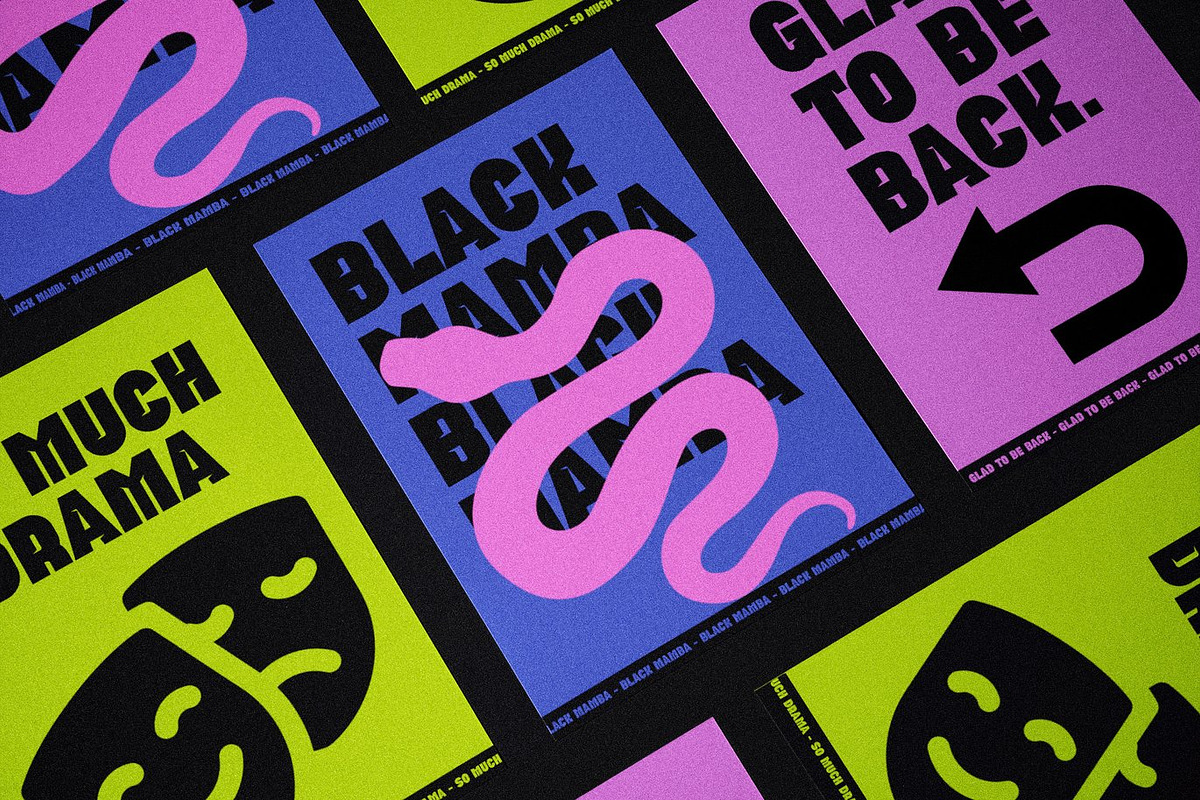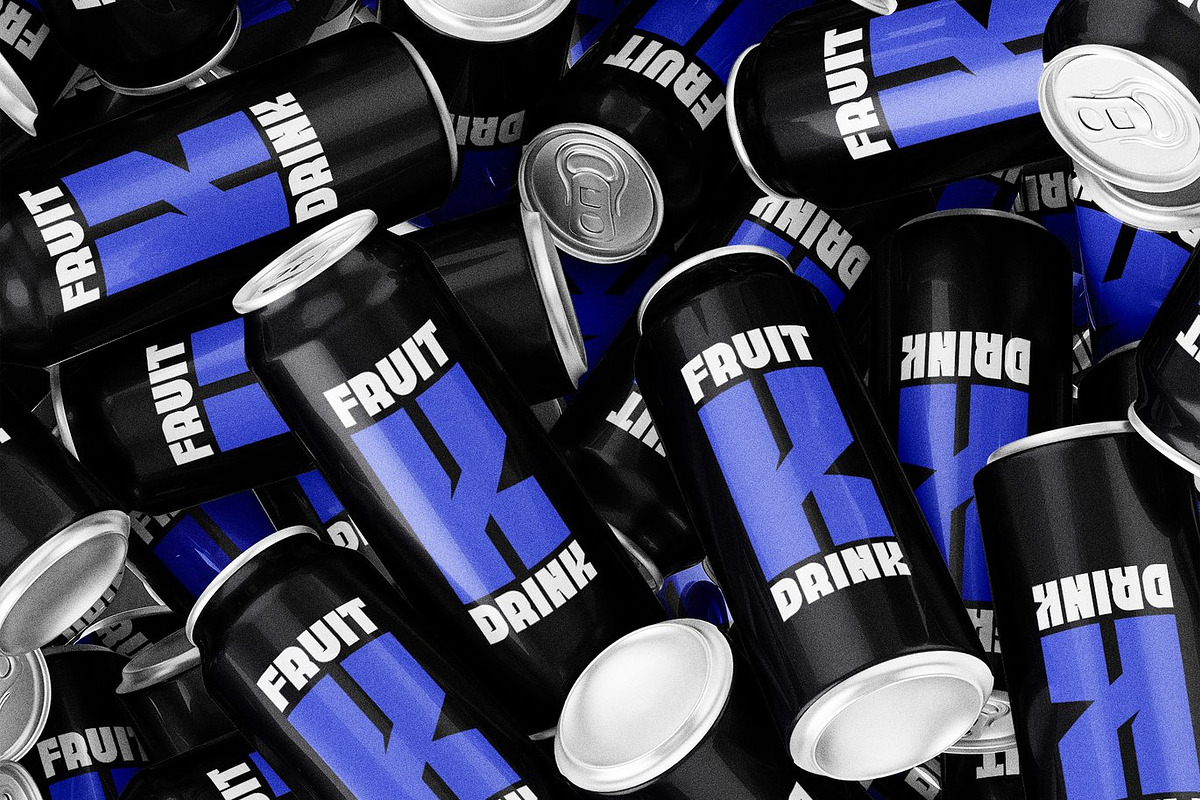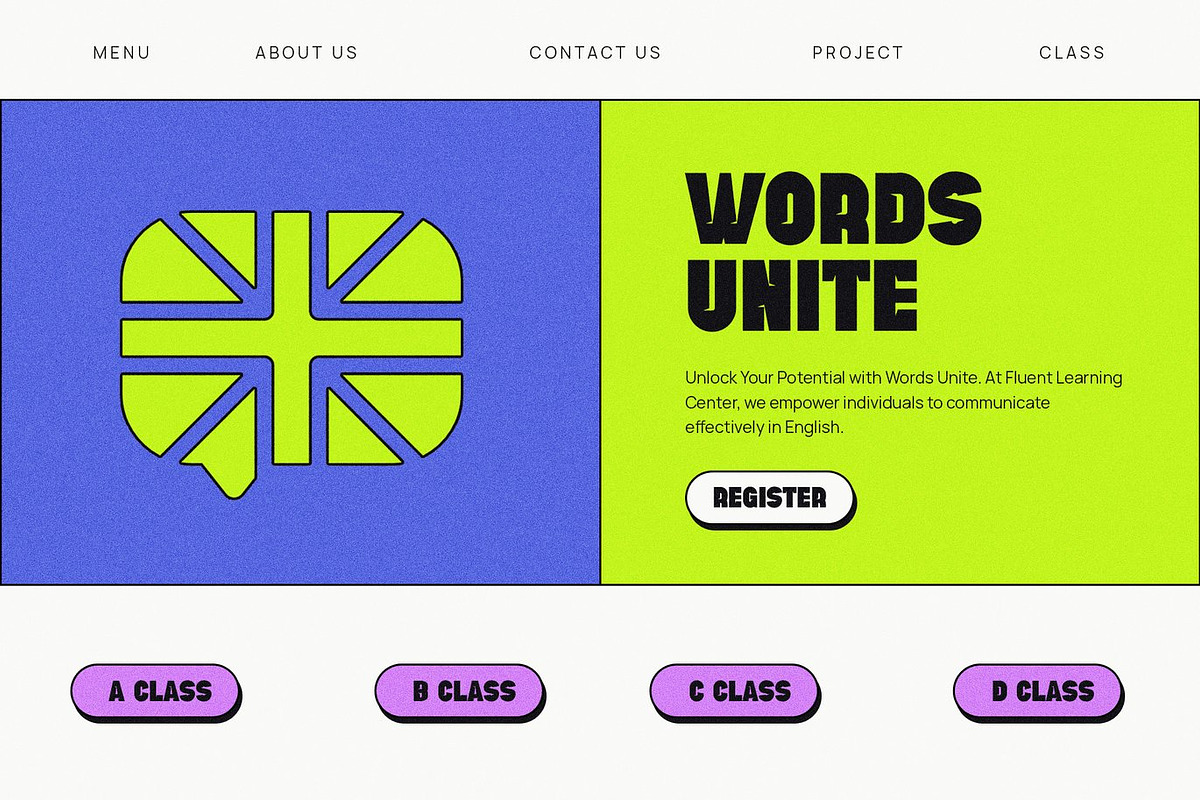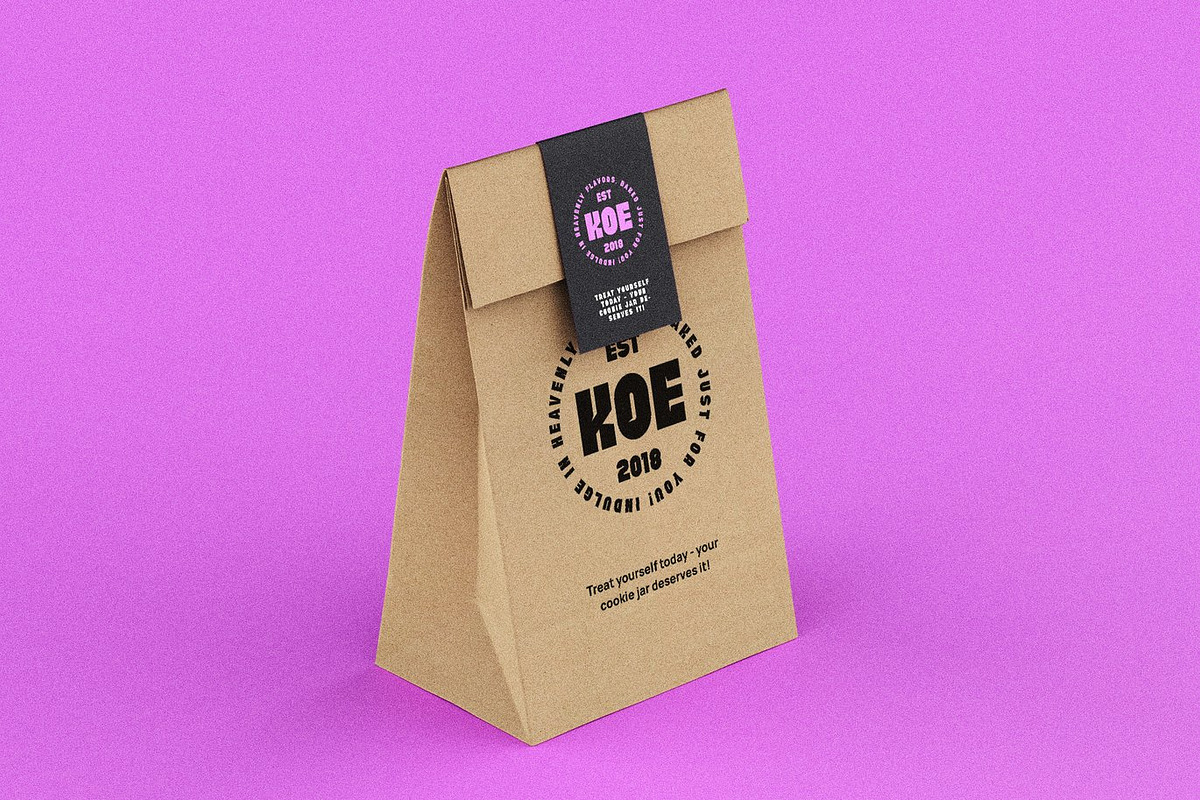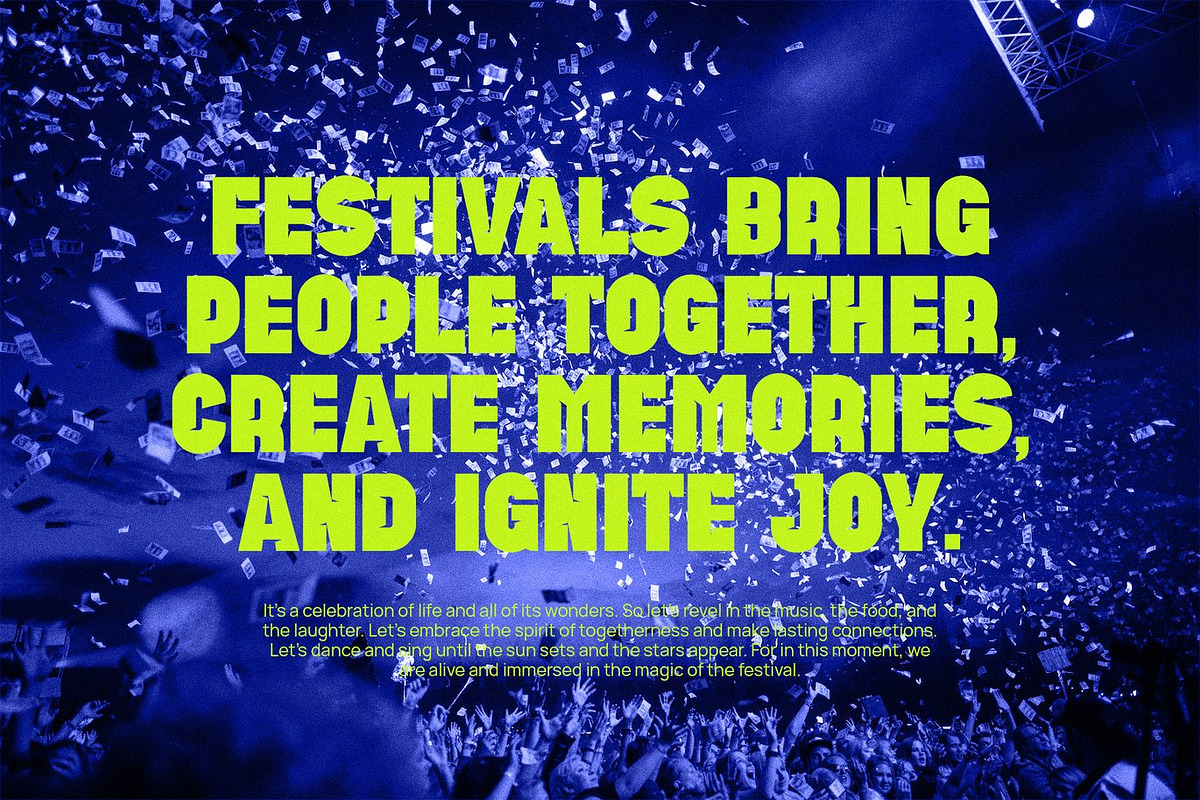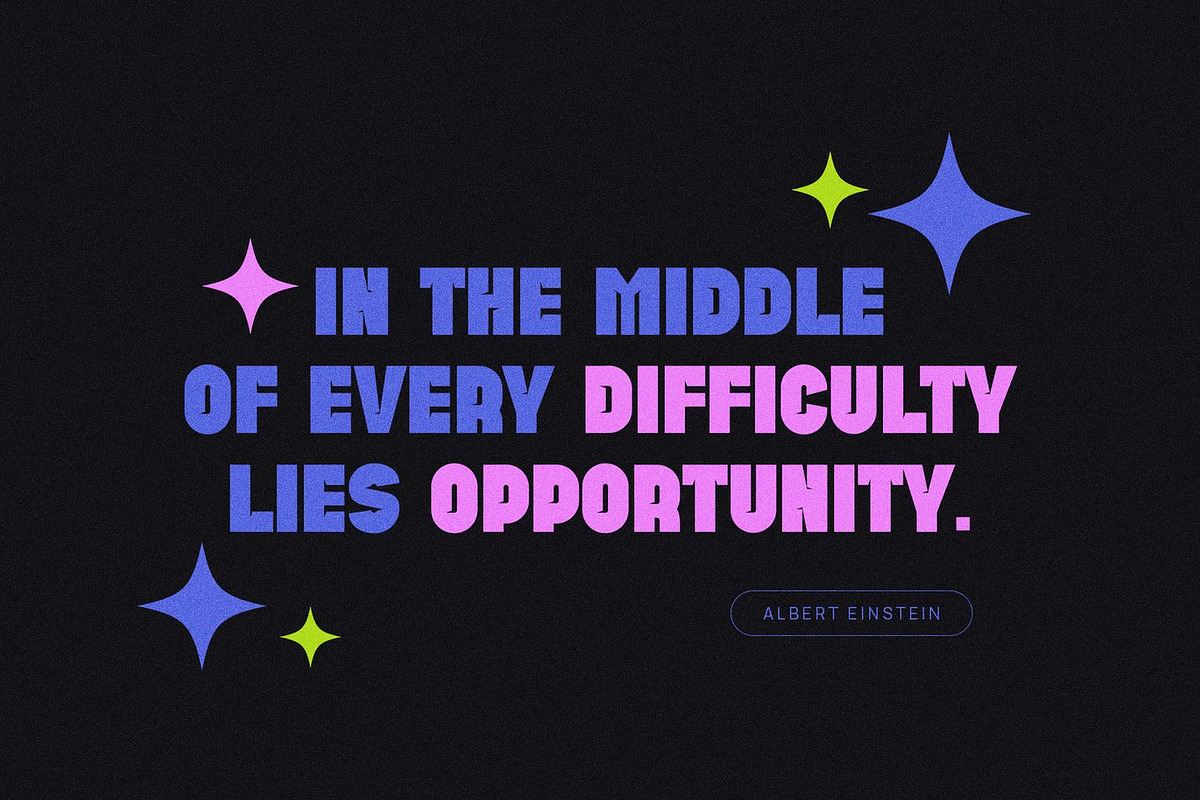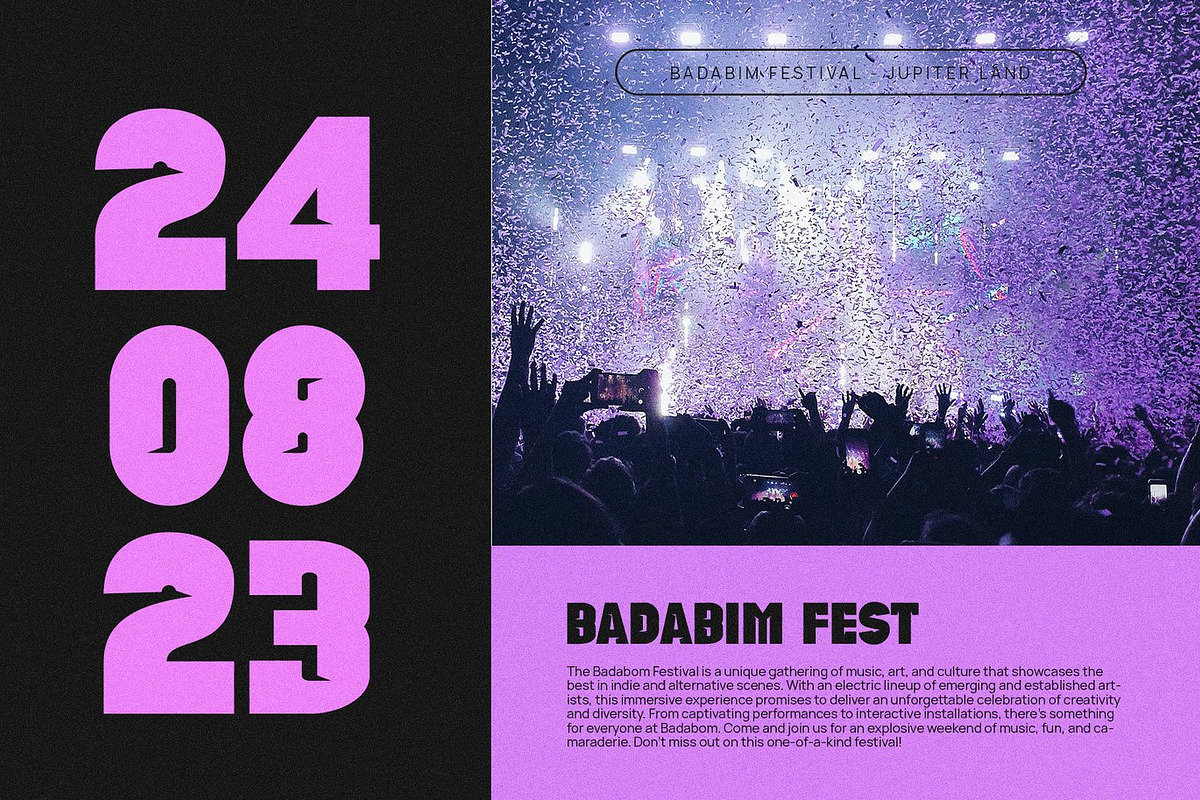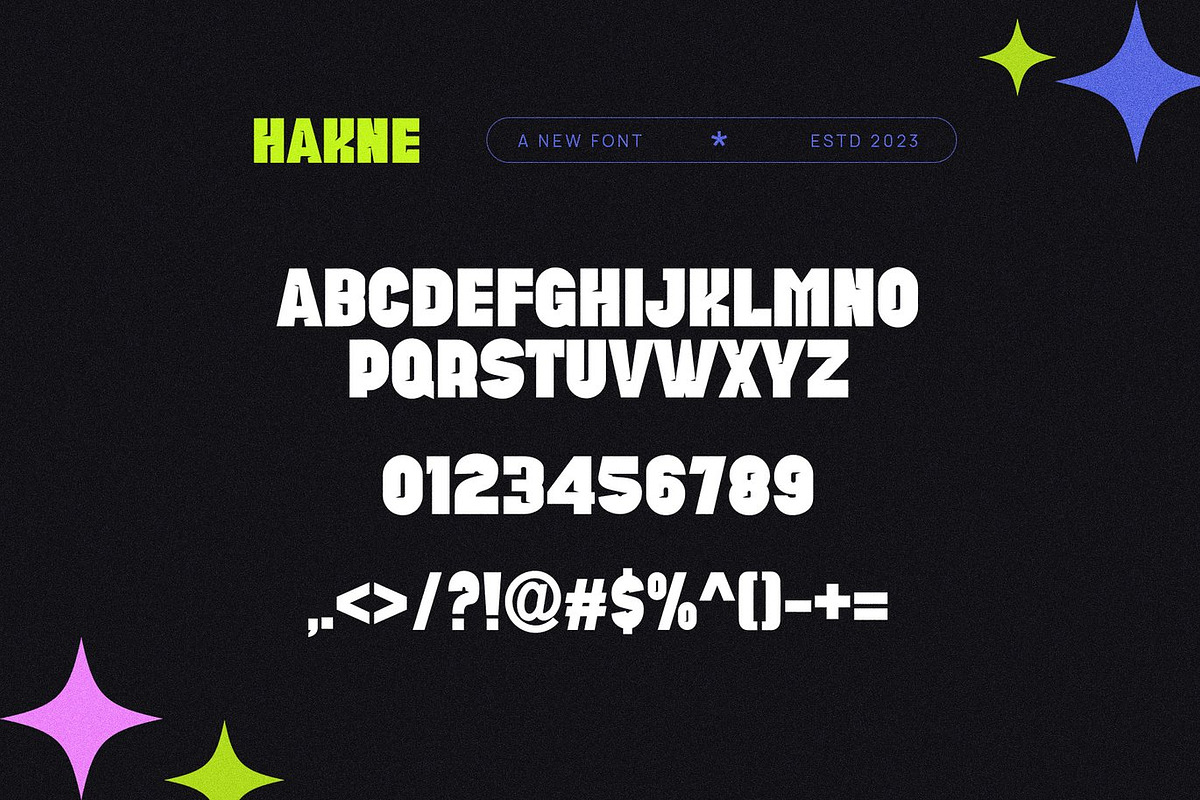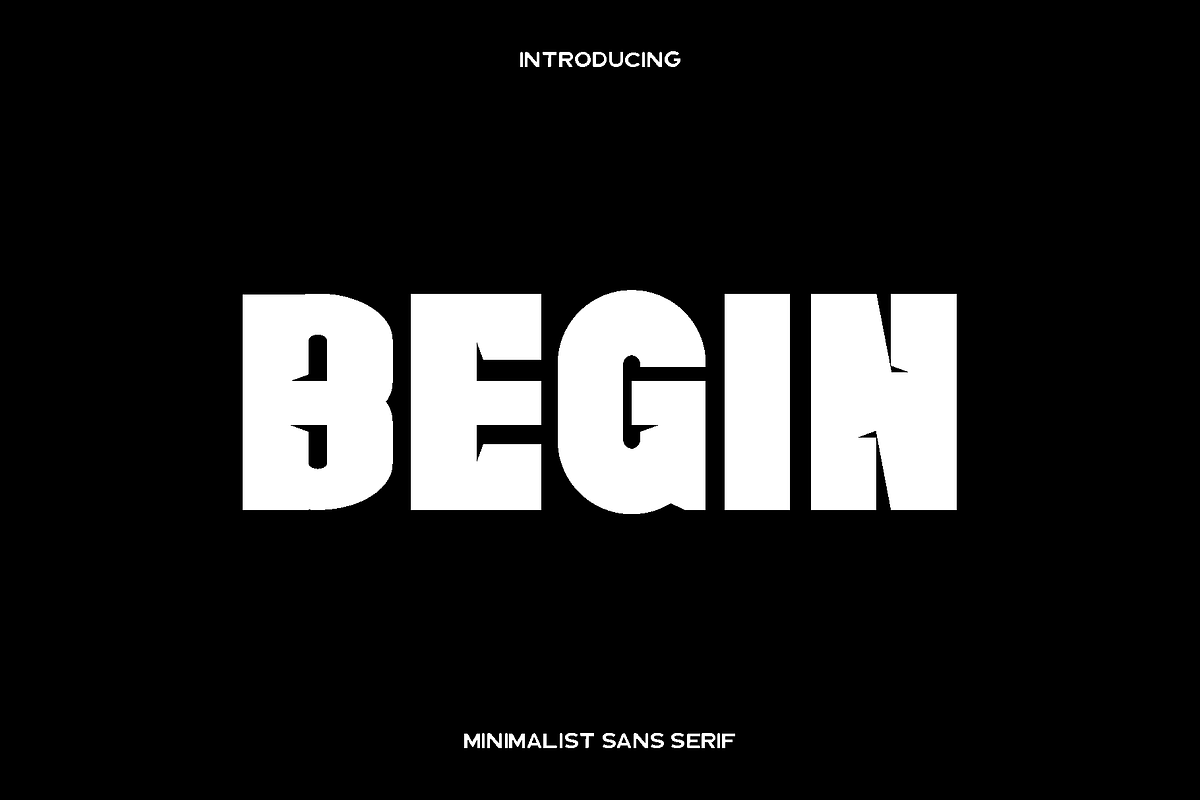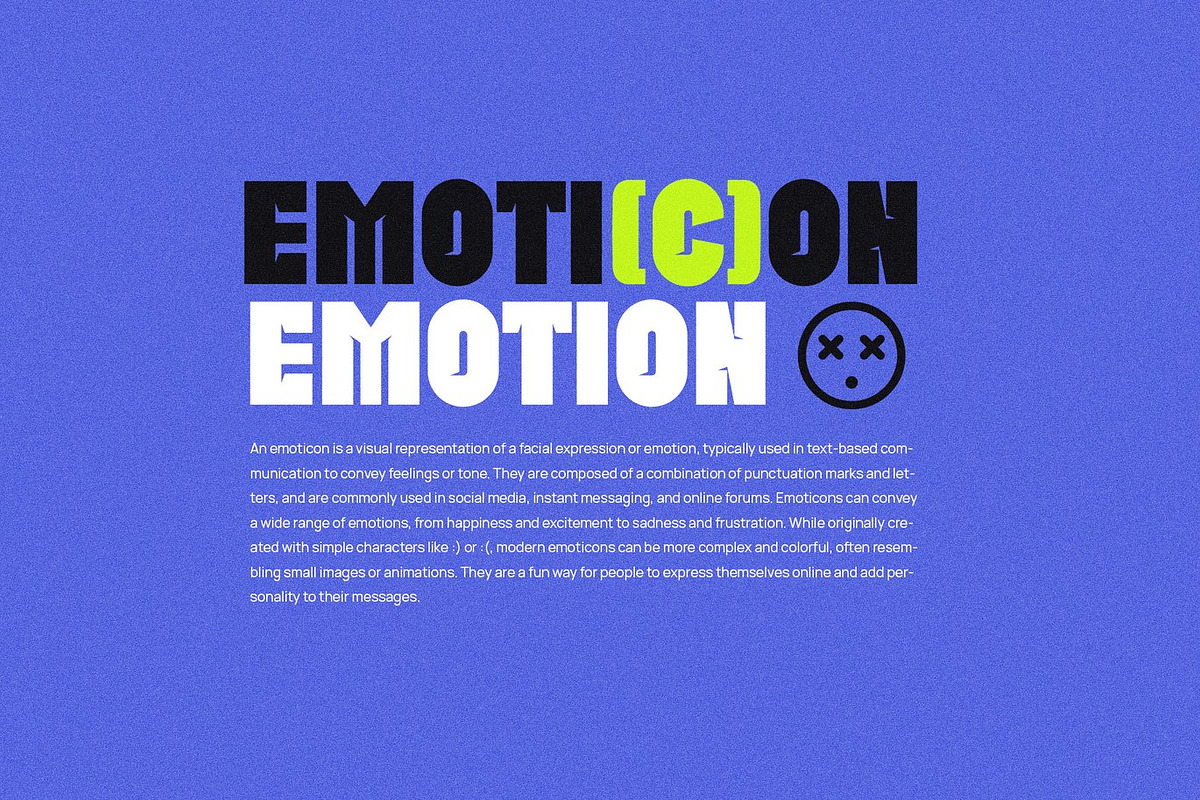
Begin - Minimalist Sans Serif
Begin is a modern typeface built on rhythm, balance, and refined simplicity. Inspired by a thoughtful blend of contemporary design principles and classic typographic structure, Begin features carefully calculated proportions with subtle contours and gentle contrast. Every glyph is designed to feel harmonious and symmetrical, creating a clean visual flow that feels confident, calm, and professional.
This typeface shines in projects that require clarity without sacrificing personality. Begin is ideal for branding, logos, brochures, advertising, magazines, posters, layout systems, social media templates, video graphics, and game interfaces. Its minimalist elegance allows it to adapt seamlessly across both print and digital environments, ensuring consistency and readability at any size.
Begin feels modern, precise, and versatile. Its understated character makes it perfect for designers who value balance, structure, and timeless appeal. Whether used for bold headlines or supporting text, Begin maintains visual integrity while enhancing the overall aesthetic of your design. It is a reliable choice for creative professionals seeking a clean, flexible, and well balanced typeface that works effortlessly across diverse design purposes.
Begin Typeface Features:
• Clean and balanced character design
• Subtle contours and refined contrast
• Numerals and punctuation included
• Accented characters for Western European languages